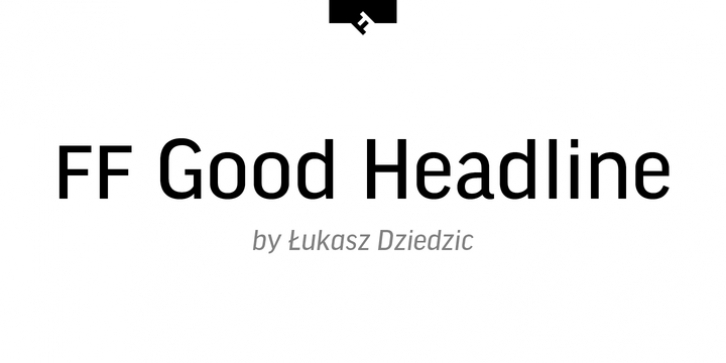
Polish type designer Lukasz Dziedzic created this sans FontFont in 2010.
The family has 30 weights, ranging from Light to Black in Condensed, Normal, and Wide (including italics) and is ideally suited for advertising and packaging and editorial and publishing.
FF Good Headline provides advanced typographical support with features such as ligatures, small capitals, case-sensitive forms, fractions, super- and subscript characters, and stylistic alternates.
It comes with a complete range of figure set options – oldstyle and lining figures, each in tabular and proportional widths.
As well as Latin-based languages, the typeface family also supports the Cyrillic writing system.
This FontFont is a member of the FF Good super family, which also includes FF Good.